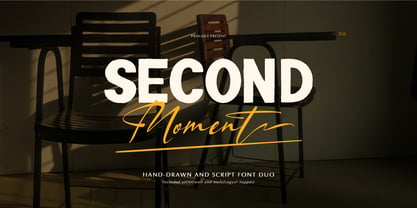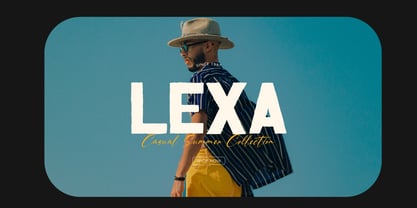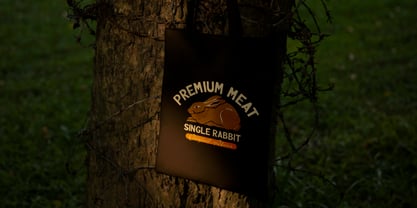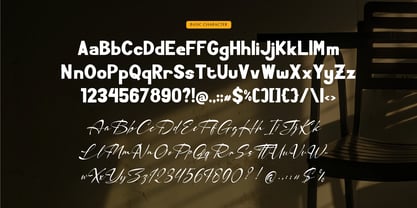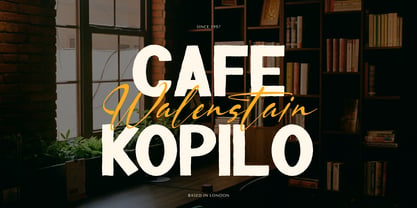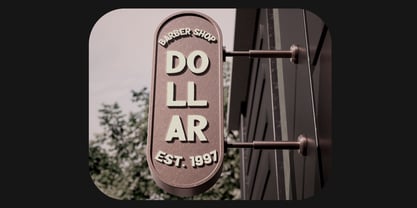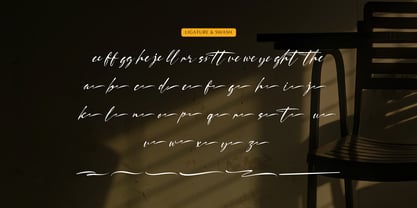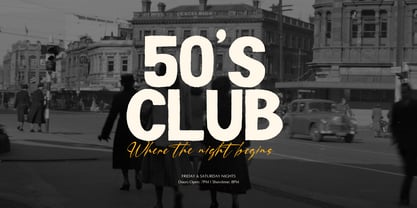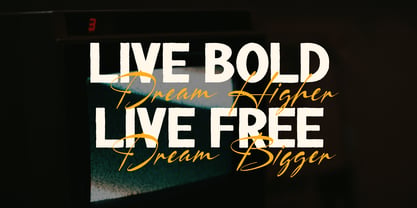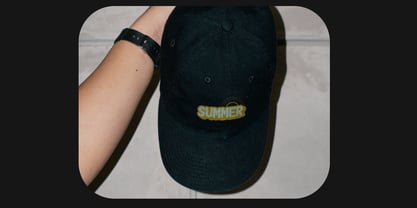
Second Moment
by Tini Fitriani
The Second Moment Font Family was designed by and published by Tini Fitriani. Second Moment contains 2 styles and family package options. More about this family
Second Moment | Hand Drawn Script Duo, from Gracetypestudio, suitable for any projects such as: logos, branding projects, homeware designs, product packaging, mugs, quotes, posters, shopping bags, t-shirts, book covers, name card, invitation cards, greeting cards, label, photography, watermark, special events, and all your other lovely projects that need a Hand Drawn Script Duo taste.